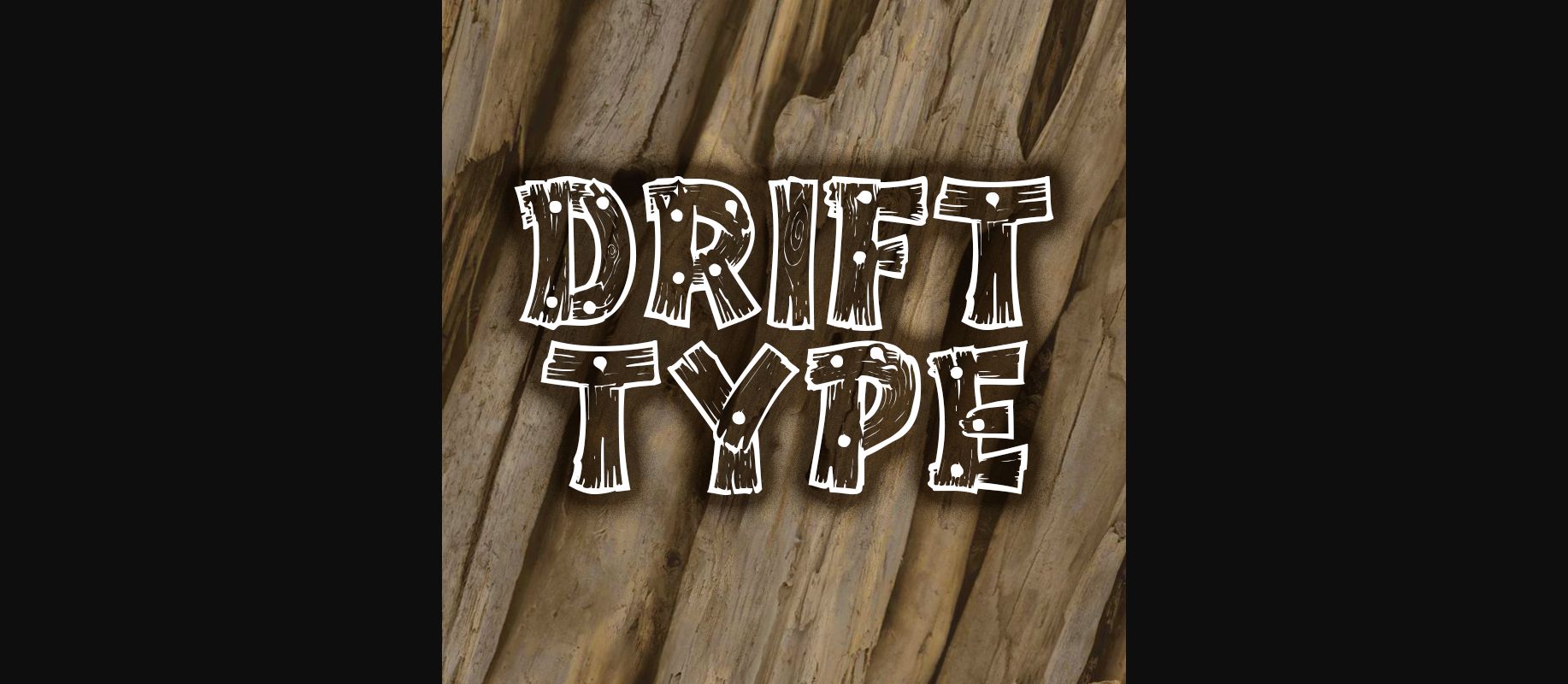
HomeDecorative FontsDrifttype Font Decorative Fonts Drifttype Font FacebookXPinterestWhatsApp 1 of 1 About Drifttype Font A caps only font made to look like it’s made from distressed wood. DOWNLOAD NOW People also explored Thunderbirds Font Forza Eitalea Regular Asetin Font October Rain Font Night Font Love Days Font Valerie Font Mention Font Chocolate Font 318 0 TagsDrifttype Font Previous articleBD Radiogram FontNext articleKahir Font LEAVE A REPLY Cancel reply Comment: Please enter your comment! Name:* Please enter your name here Email:* You have entered an incorrect email address! Please enter your email address here Website: Save my name, email, and website in this browser for the next time I comment. Personal Use Free Hallo Betty Personal Use Free Read more about this font Shkoder 1989 Personal Use Free Read more about this font Amellis Path Personal Use Free Read more about this font Mahisya Personal Use Free Read more about this font BLOG Fonts That Capture the Spirit of New York City New York City is more than just a place—it’s an experience, a rhythm, a visual language... Using Fonts in Digital Marketing: Tips to Strengthen Your Brand Identity 5 Fonts That Will Dominate Design Trends in 2026 Elegant Wedding Invitation Fonts – Handwritten & Script Fonts